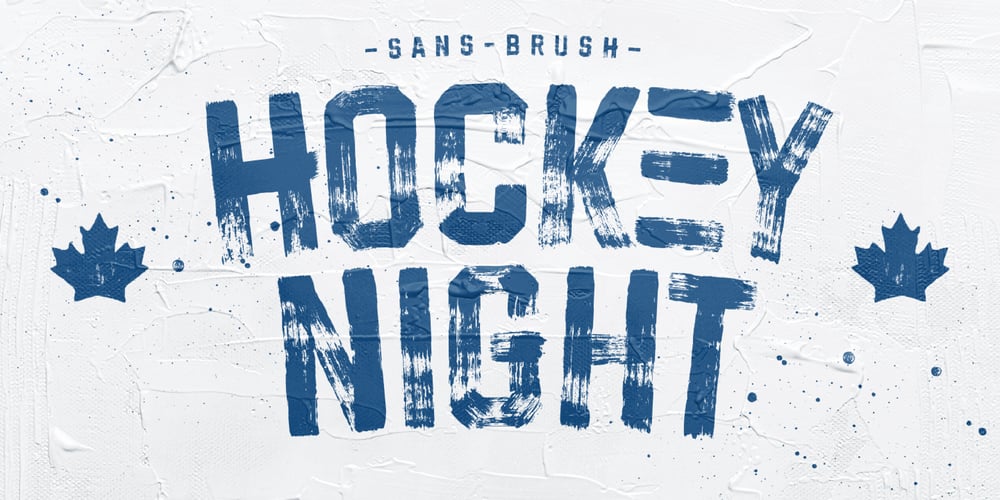
Hockeynight Sans Brush
Hockeynight Sans Brush font
Hockeynight Sans Brush Font Family was designed by Christoph Zeugswetter and published by XTOPH. Hockeynight Sans Brush contains 2 styles and family package options. “Hockeynight Sans Brush” is the handwritten version of my “Hockeynight Sans”. It’s a contemporary college-sports font with the little twist – that its a brush font.With its detailed brushmarks it is designed to go big and bold.”Hockeynight Sans Brush” is an uppercase font and it offers alternate glyphs as lowercases.It pairs perfect with my other “Hockeynight” Fonts – Check it out!